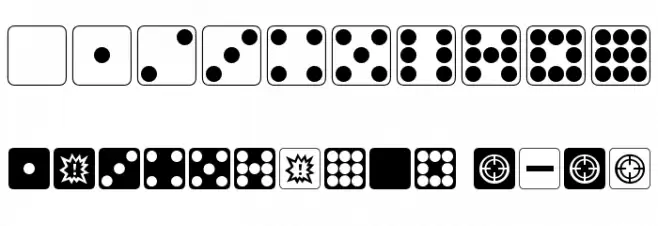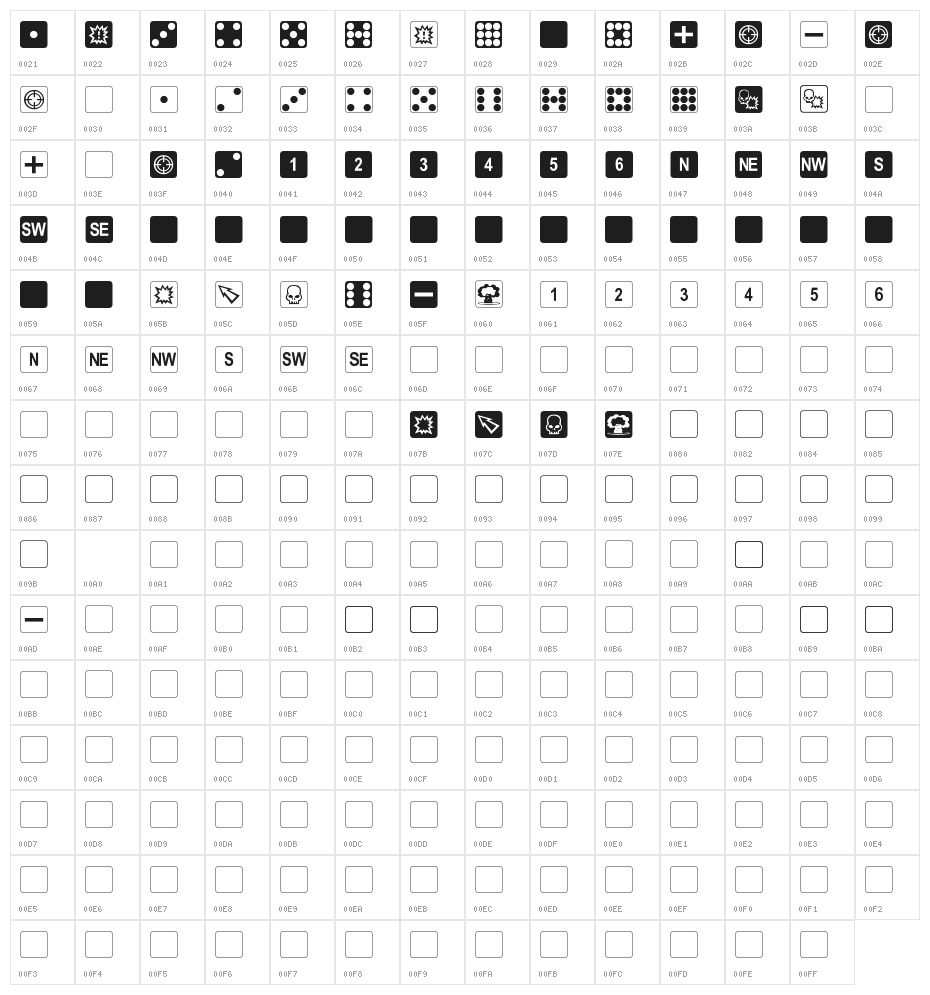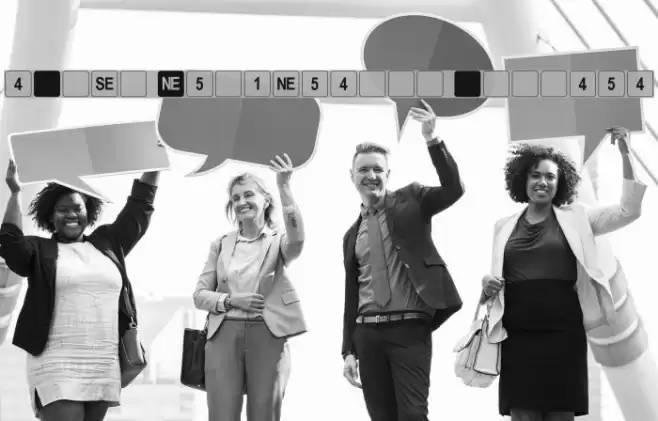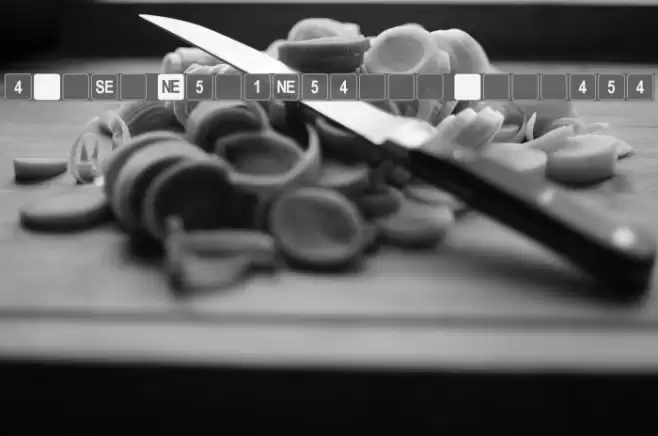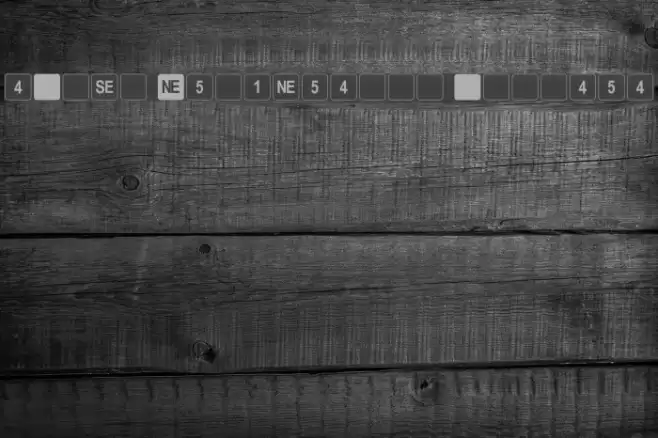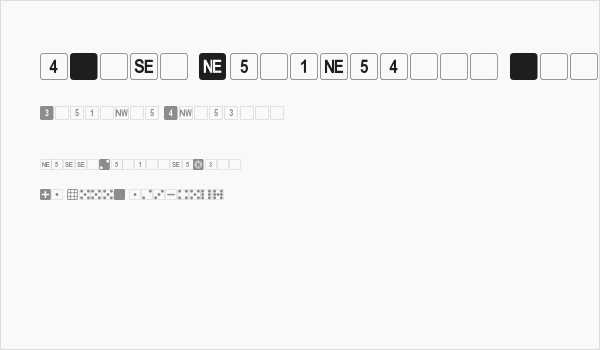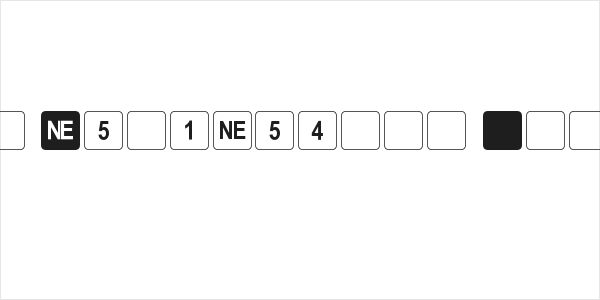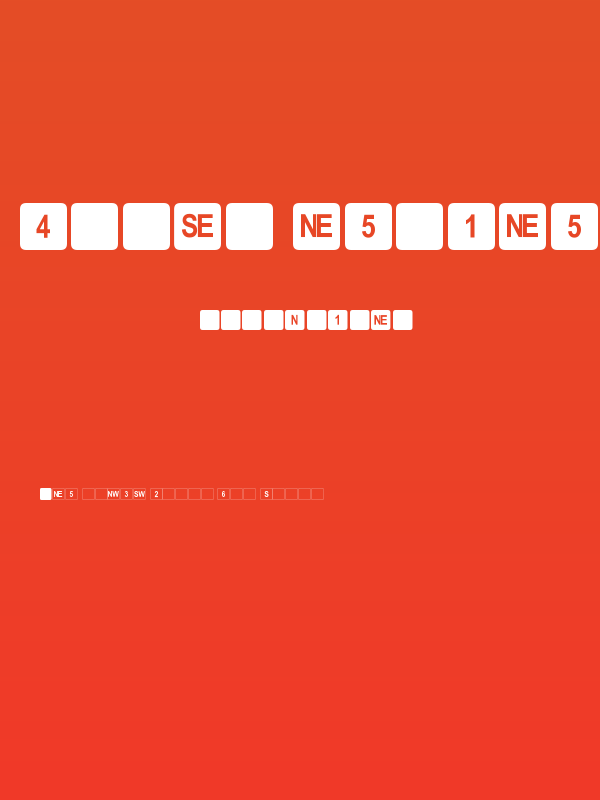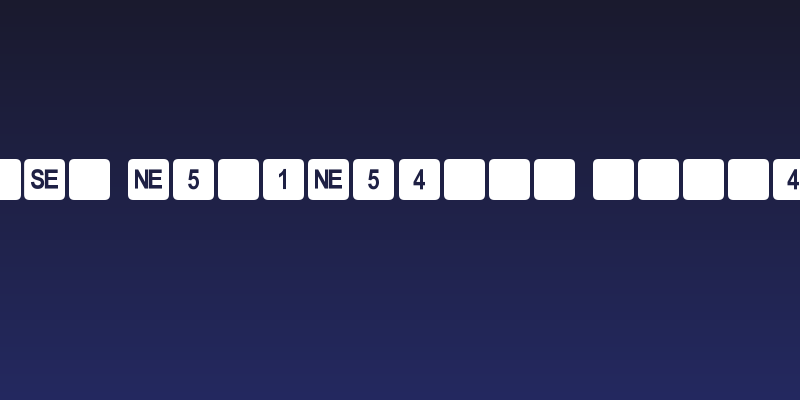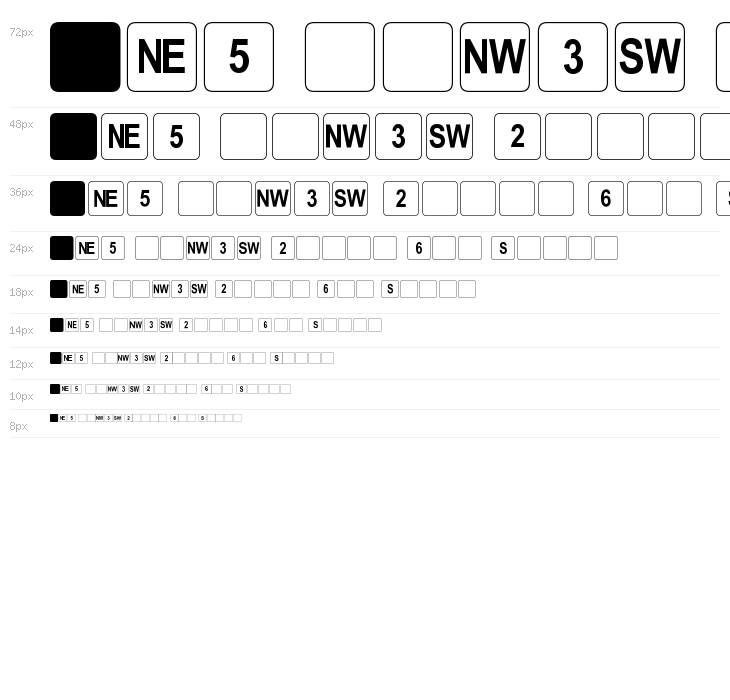
dPoly Hexahedron Rounded Font
dPoly Hexahedron Rounded Description
This is not a valid font. The image appears to depict a series of symbols and icons rather than a traditional alphabetic or numeric font set. The elements include numbers, directional indicators, and dice representations, all enclosed in rounded squares. These symbols are more akin to a set of icons or pictograms rather than a typeface that includes standard characters like A-Z, a-z, 0-9, and common punctuation marks.
| Overall Style | Iconographic |
| Use Case | Icons, Game Design, Educational Materials |
| Proposed Projects | This set could be used for board games, educational tools, or digital interfaces requiring iconographic representations. |